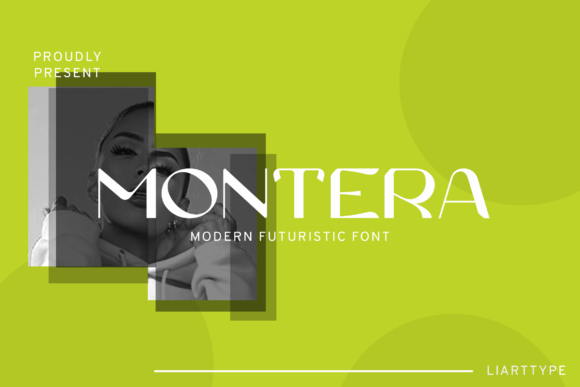
Introducing Montera Font - The Bold Statement Maker
Montera Font, a creation of Liarttype, is not just a font; it's a style statement waiting to be unleashed onto your designs. With its captivating presence and confident strokes, Montera is the perfect choice for those who dare to stand out.
A Masterpiece of Design:
- Montera's assertive style and unique touch make it a standout in the world of display fonts.
- Its carefully crafted curves and angles exude a sense of confidence and boldness, leaving a lasting impression on your audience.
- Whether it's a fashion magazine, logo, landing page, flyer, or photograph, Montera enhances the visual appeal and demands attention.
Beyond Ordinary:
- Montera isn't just a font; it's a versatile chameleon that adapts to your creative vision.
- Its adaptability shines through, allowing it to blend seamlessly with various design aesthetics, from modern and edgy to classic and timeless.
- Unleash your creativity and push boundaries with Montera as your trusted companion.
A Perfect Fit for Your Sporting Passion:
- If you're looking for the perfect font to capture the energy and excitement of sports, look no further than Montera.
- Its dynamic characters and bold presence make it an ideal choice for sports apparel, conveying a sense of power, speed, and determination.
- Let Montera elevate your designs and ignite the passion of sports enthusiasts.
Style and Substance United:
- Montera doesn't compromise on substance while delivering style.
- Its crisp and legible letterforms ensure readability, making it suitable for both headings and body text.
- The font's distinct personality adds a touch of sophistication without sacrificing clarity.
Make Your Designs Unforgettable:
- With Montera, you'll transform ordinary designs into unforgettable masterpieces.
- Its captivating presence and bold strokes command attention, leaving a lasting impact on your audience.
- Experience the power of Montera and watch your designs shine brighter than ever before.